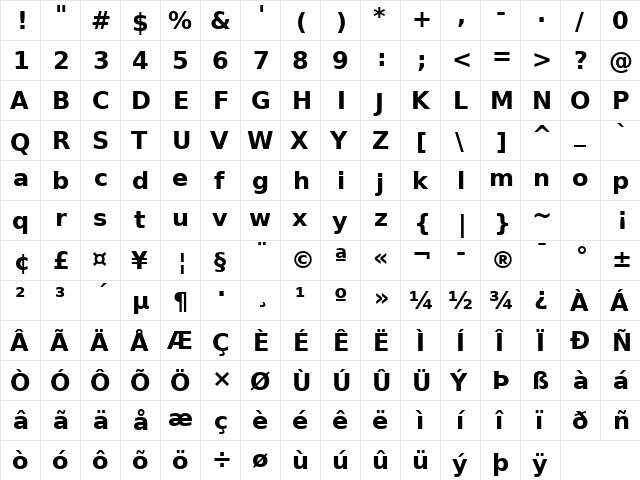
ae_Ouhod Bold
| Foundry | FAZLUR RAHMAN QURAISHI |
| Designer | Regenerated by Nadim Shaikli |
Design Context for ae_Ouhod Typeface
ae_Ouhod takes a measured approach to typography — its balanced proportions and neutral character make it a reliable workhorse for both digital and print work. The heavy weight commands attention and anchors typographic hierarchies.